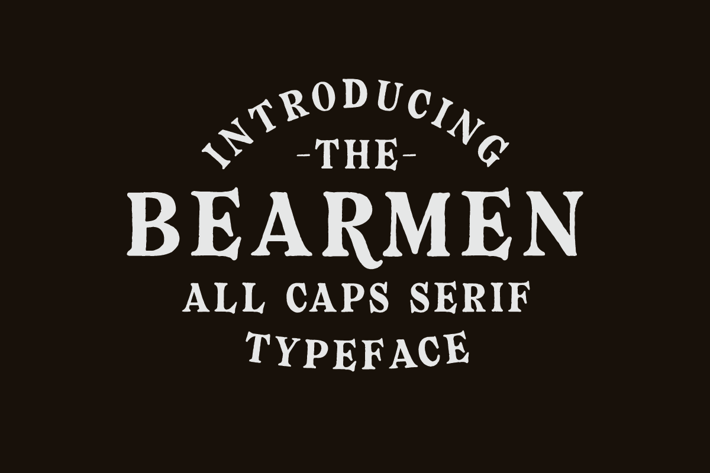
Bearmen Vintage Typeface
Bearmen is a vintage line typeface inspired by handmade lettering this, typeface is ready to use and suitable retro design like for Logotype, Label, Sign Painting, Badges, Poster and etc.